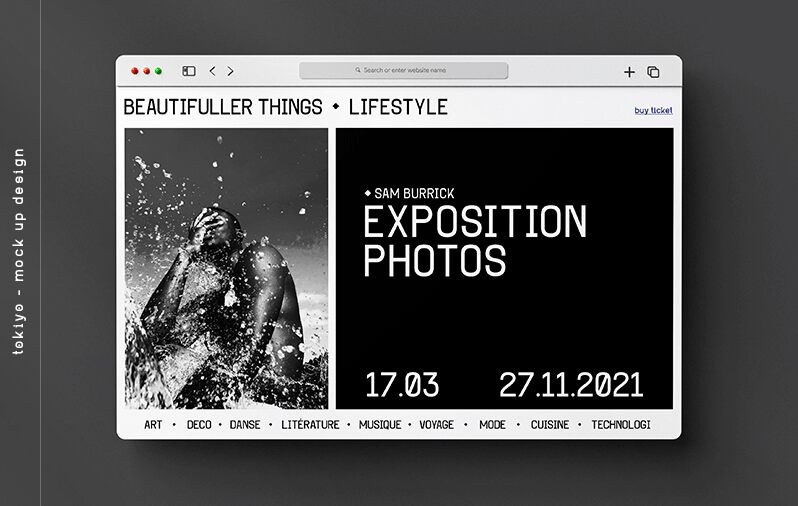
Tokiyo, the brainchild of designer Gede Sugiantara, is a versatile and modern sans serif font that will elevate any project. Its semi-light weight lends a sleek and airy feel to designs, making it perfect for websites, branding materials, and editorial layouts. This font typeface's clean lines and minimalist style make it suitable for both formal and casual settings. With its easy-to-read letterforms, Tokiyo is an excellent choice for any project that requires clarity and sophistication. From business cards to product labels to digital ads, Tokiyo is sure to make your message stand out with its understated elegance.